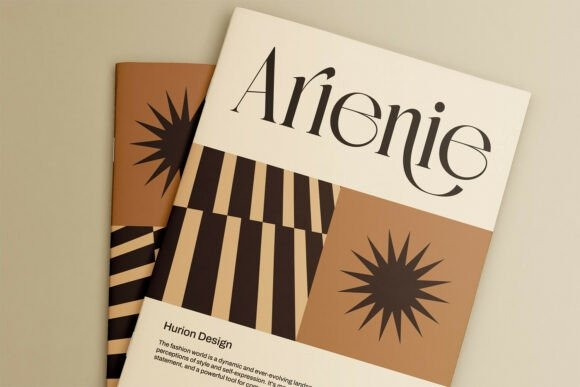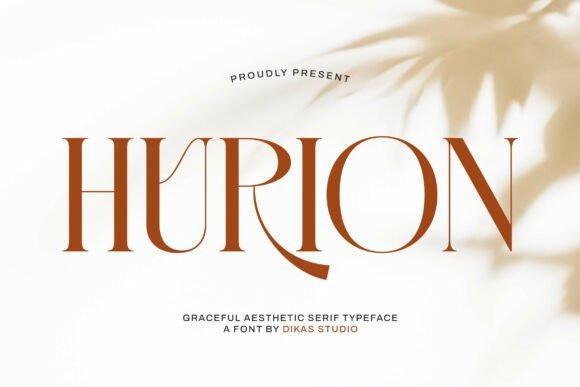
Hurion Font
Hurion Font – an elegant serif typeface that exudes timeless sophistication with a modern edge, perfect for high-end design projects. The Hurion font features tall, flowing typefaces, subtle curves, and a subtle contrast between thick and thin strokes, creating a harmonious balance of strength and elegance. Ideal for luxury brands, editorial layouts, wedding invitations, and logo designs, the Hurion font offers a refined and expressive tone that elevates any visual composition.
Whether used for bold headlines or subtle accents, the Hurion font brings elegance and artistry to any creative project.